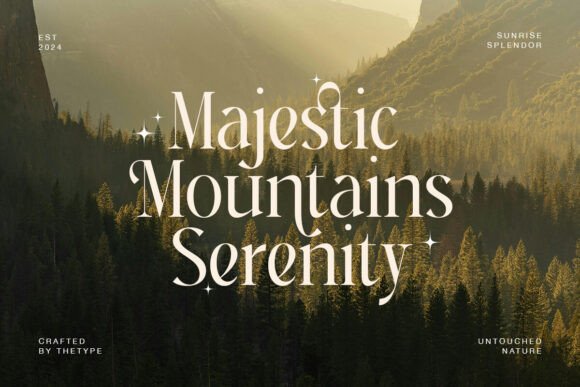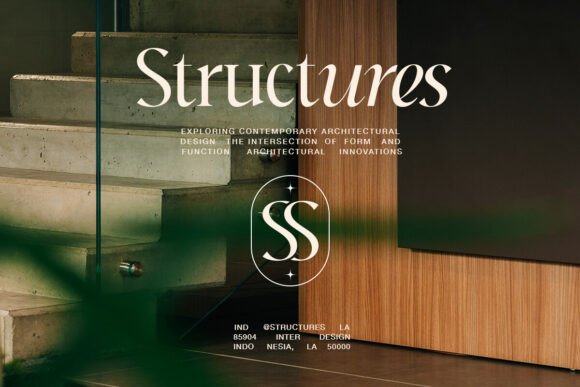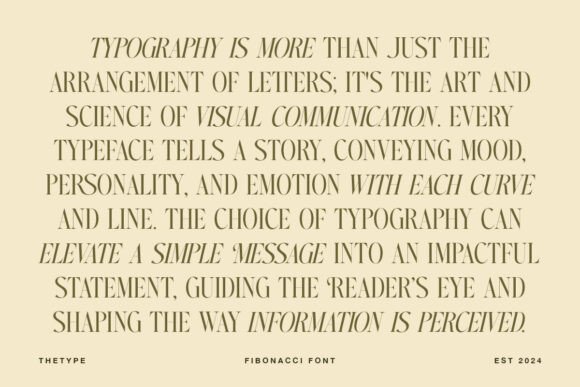
Fibonacci Font: An Elegant Serif for Modern Logo Design & Branding
About the Fibonacci Font
Discover the charm of Fibonacci Font. This font is a perfect blend of modern aesthetics and classic appeal. Fibonacci – a modern serif font inspired by the genius of the Fibonacci sequence. This font can appear more classic and conservative with its serif and italic styles, making it perfect for text-heavy designs. At the same time, it can be more expressive, playful, and modern when using alternative characters and ligatures. Experiment with these options to bring a unique flair to your project!
Fibonacci’s versatility shines in display applications such as headlines, logos, and short-form text on posters or packaging. Its classic serif structure lends itself well to branding projects requiring a touch of sophistication and timelessness. However, the intricate details might become illegible in smaller sizes or extended body text, making it less suitable for long-form content or UI elements.
The font’s core personality is elegant yet playful. This duality allows for diverse applications, from high-end product packaging to youthful, modern campaigns.
Pairing Fibonacci with a clean sans-serif like Open Sans for body copy creates a balanced contrast. For a more formal feel, consider pairing it with a classic serif like Garamond. A playful script font like Pacifico could add a touch of whimsy to designs where a more expressive approach is desired.
Fibonacci Font Usage Examples
Fibonacci Font Example